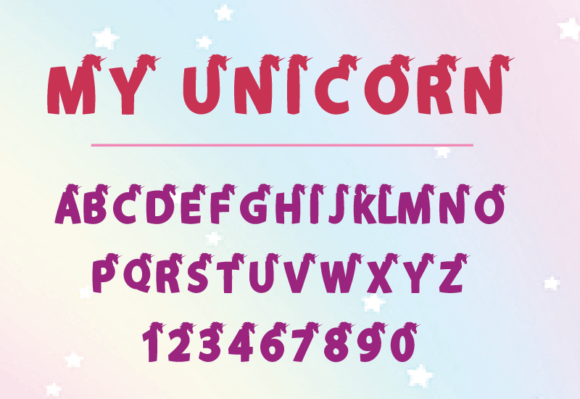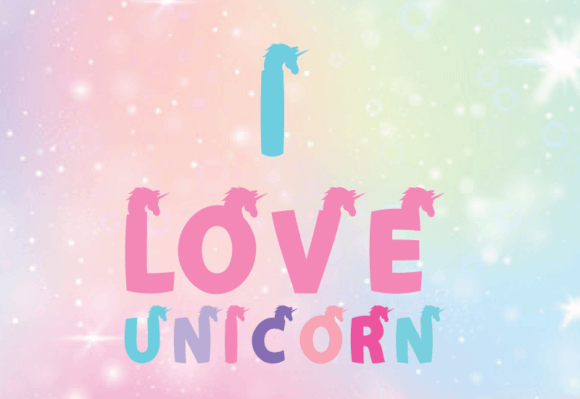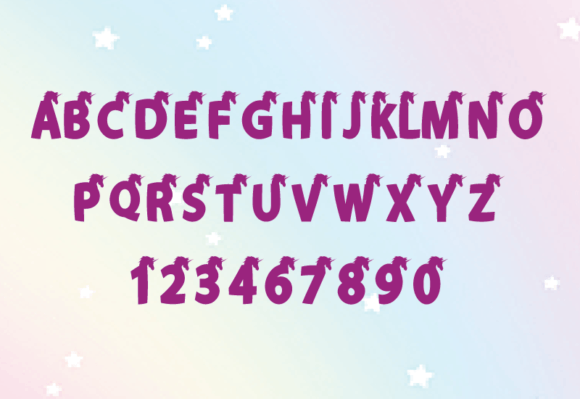
Unlocking Your Creative Potential with My Unicorn Font
Have you ever been in the midst of a creative project, pouring your heart and soul into a design, only to feel like something is missing? The spark of inspiration that drives us to create can sometimes be fleeting, but with the right tools, we can reignite that flame. For designers, finding the perfect font can be the difference between a good design and a great one. That’s where My Unicorn Font comes in – a stylish and unique decorative font that’s sure to bring your creative ideas to life.
As a valuable addition to any designer’s toolkit, My Unicorn Font offers a level of sophistication and elegance that’s hard to find elsewhere. With its high-quality design and transparent background, this font is perfect for adding a touch of magic to your projects. And the best part? It’s available as a free download, making it accessible to designers of all levels.
Key Features of My Unicorn Font
- High-quality design: This font is crafted with attention to detail, ensuring a professional and polished look for any creative project.
- Transparent background: My Unicorn Font features a transparent background, making it easy to customize and integrate with any design resource.
- Size: This font is designed to be versatile, with a range of sizes available from 12pt to 72pt.
- Resolution: My Unicorn Font is optimized for high-resolution displays, ensuring crisp and clear text at resolutions up to 300 DPI.
- Unique characteristics: My Unicorn Font features a unique blend of whimsy and sophistication, making it perfect for designers looking to add a touch of magic to their creative project.
Honest Review: My Unicorn Font
I recently stumbled upon My Unicorn Font while searching for a unique design resource to elevate my creative project. I was excited to give it a try, and overall, I’m quite pleased with the results.
- High-quality glyphs: The font is crisp and clear, with no visible artifacts or distortions.
- Transparent background: This feature makes it easy to composite the font with other design elements.
However, I did encounter some limitations that might impact its usability in certain situations.
- Character set limitations: The font appears to be designed for display purposes only, and it may not have a comprehensive character set for text-heavy projects.
- Size limitations: While the font looks great at larger sizes, it may become blurry or pixelated at smaller sizes.
Overall, I’m impressed with My Unicorn Font’s unique style and high-quality design. While it may not be suitable for all design projects, it’s a valuable addition to any designer’s toolkit.
Tips for Getting the Most Out of My Unicorn Font
Here are some tips for getting the most out of My Unicorn Font:
- Experiment with different font sizes and styles to create visually appealing designs.
- Combine My Unicorn Font with other design elements, such as images and shapes, to create unique and creative designs.
- Use the font’s transparent background to create seamless designs that blend with other elements.
My Unicorn Font is perfect for a variety of creative projects, including:
- Graphic
Q: Does My Unicorn Font have a transparent background?
Yes, My Unicorn Font features a transparent background, making it easy to use in designs where a solid background is not desired. This is especially useful for designers working on graphics, logos, and other visual elements that require a high level of design flexibility.